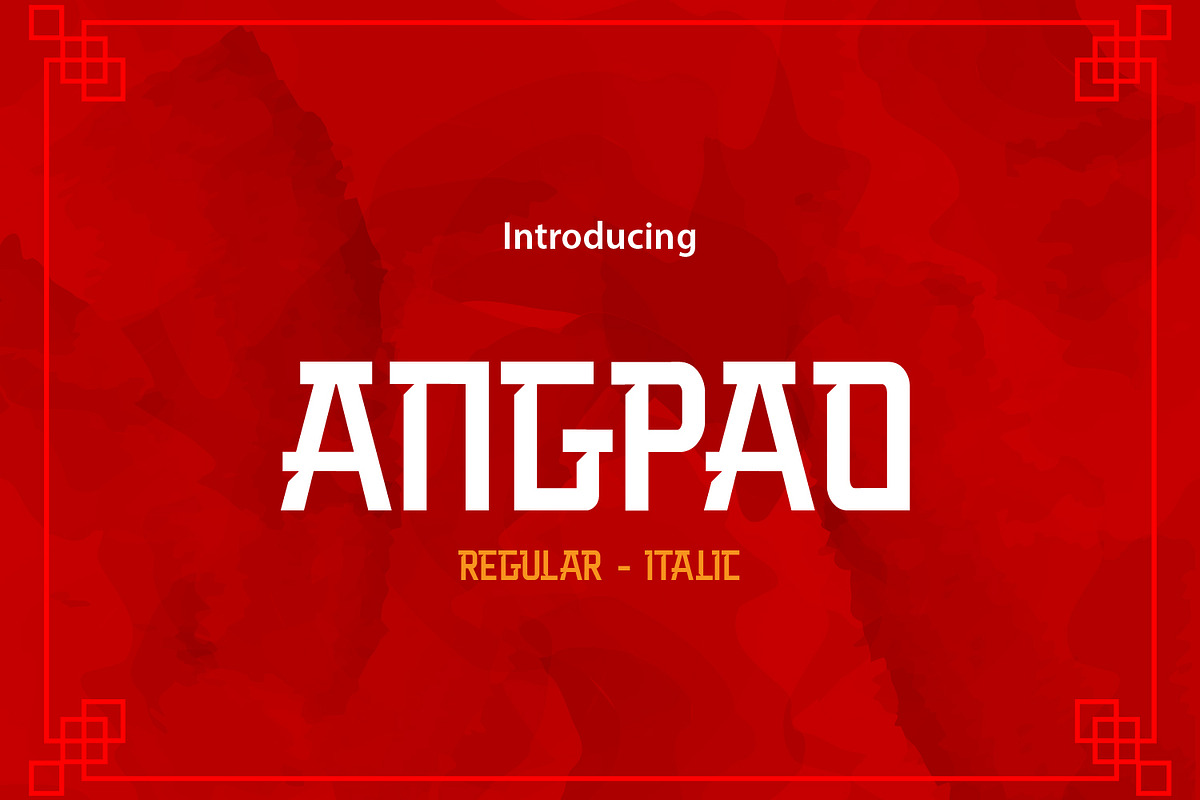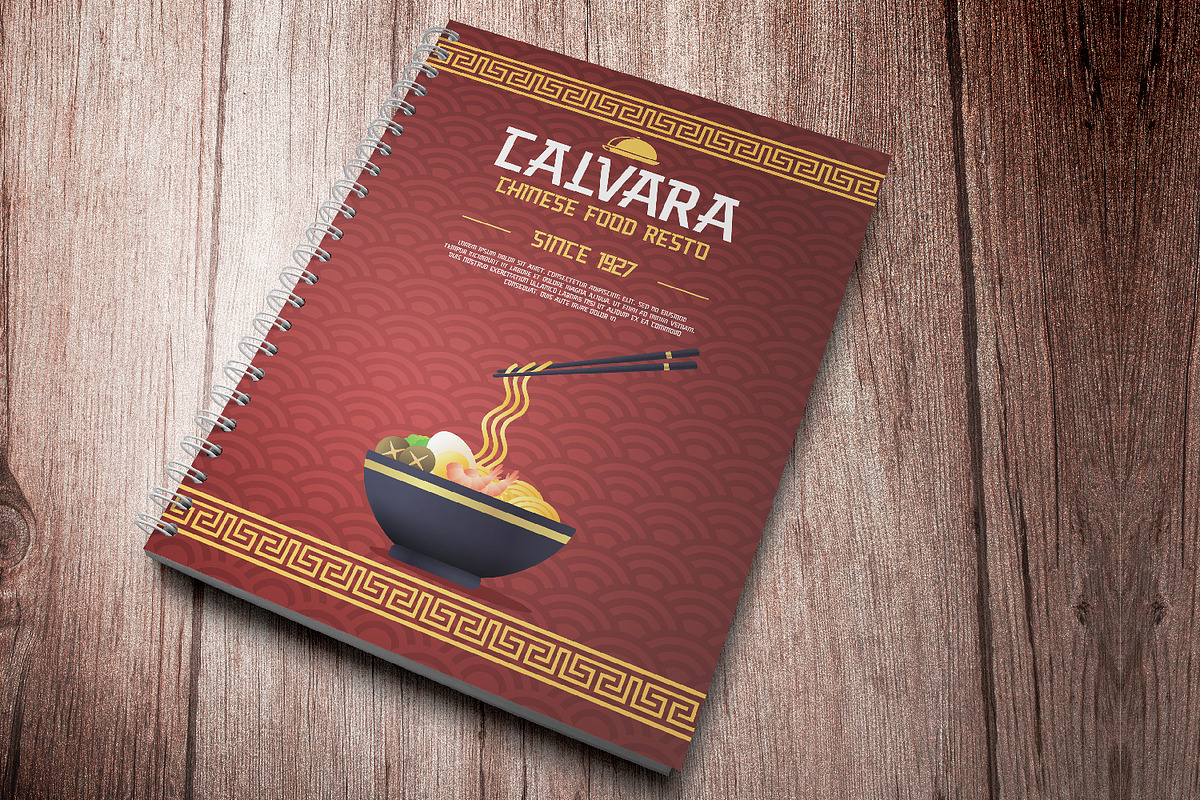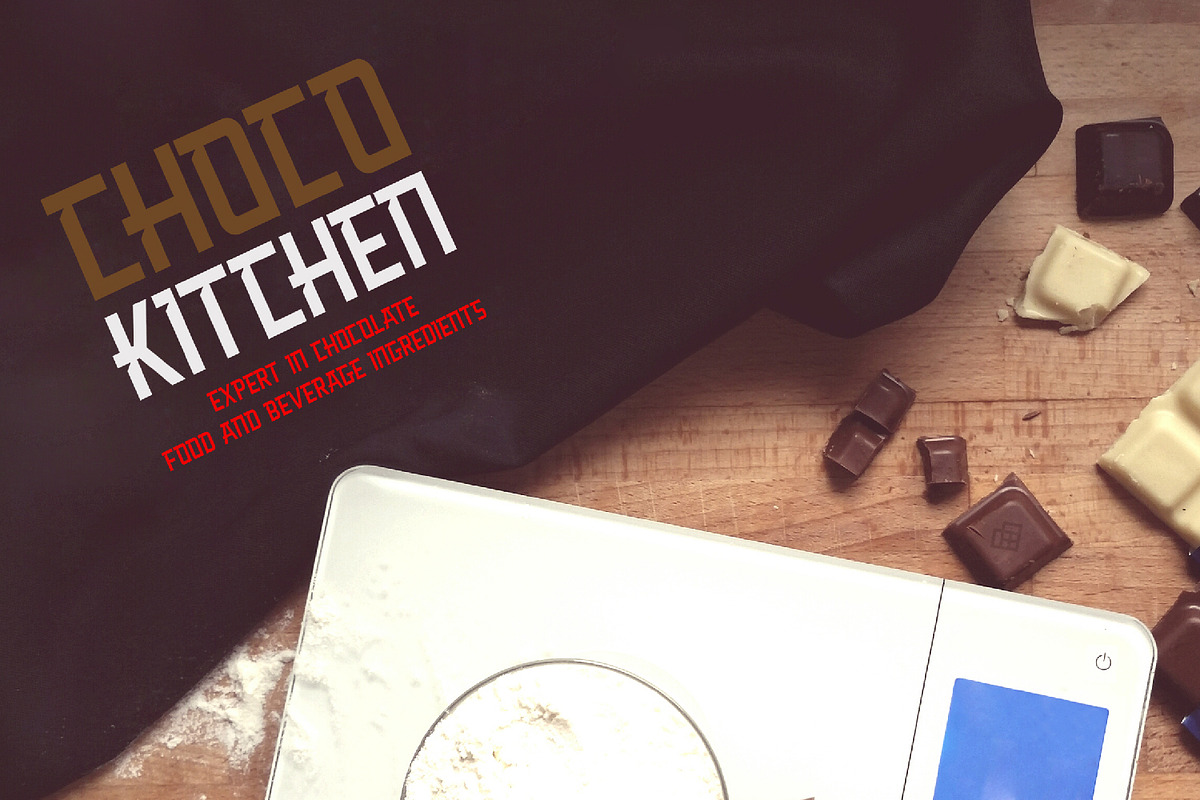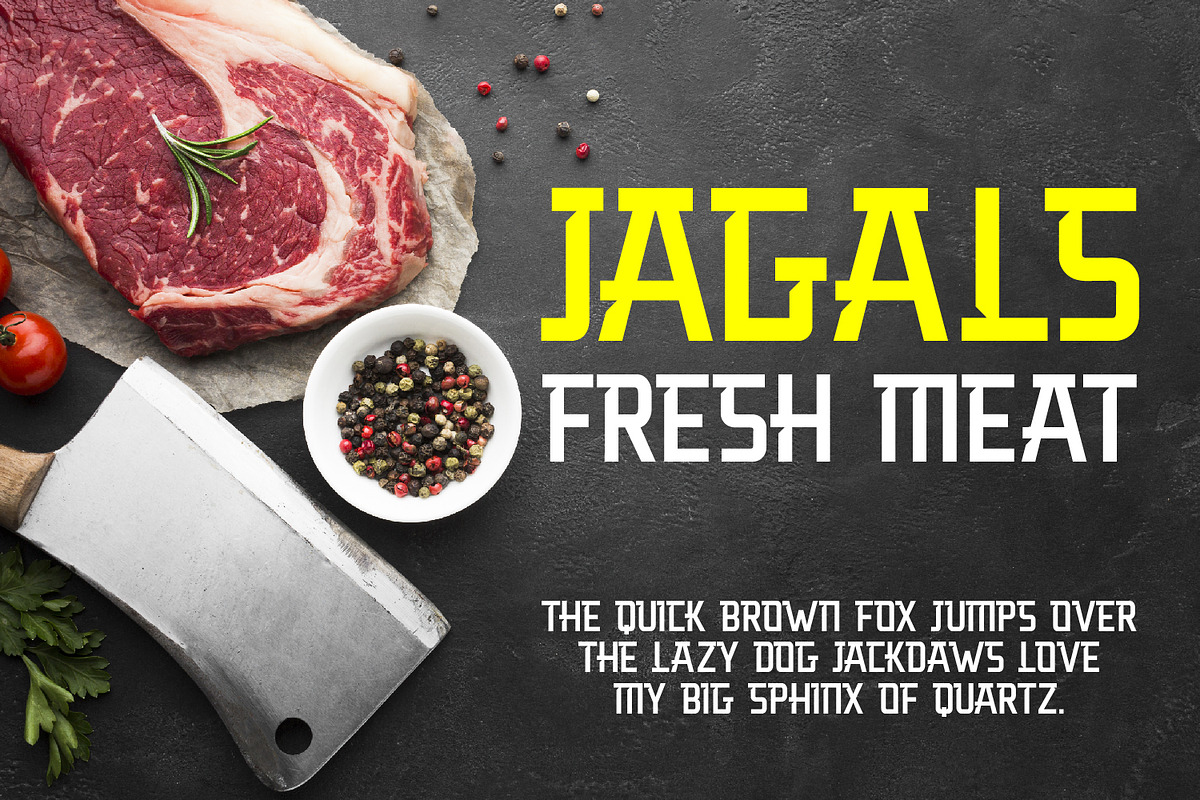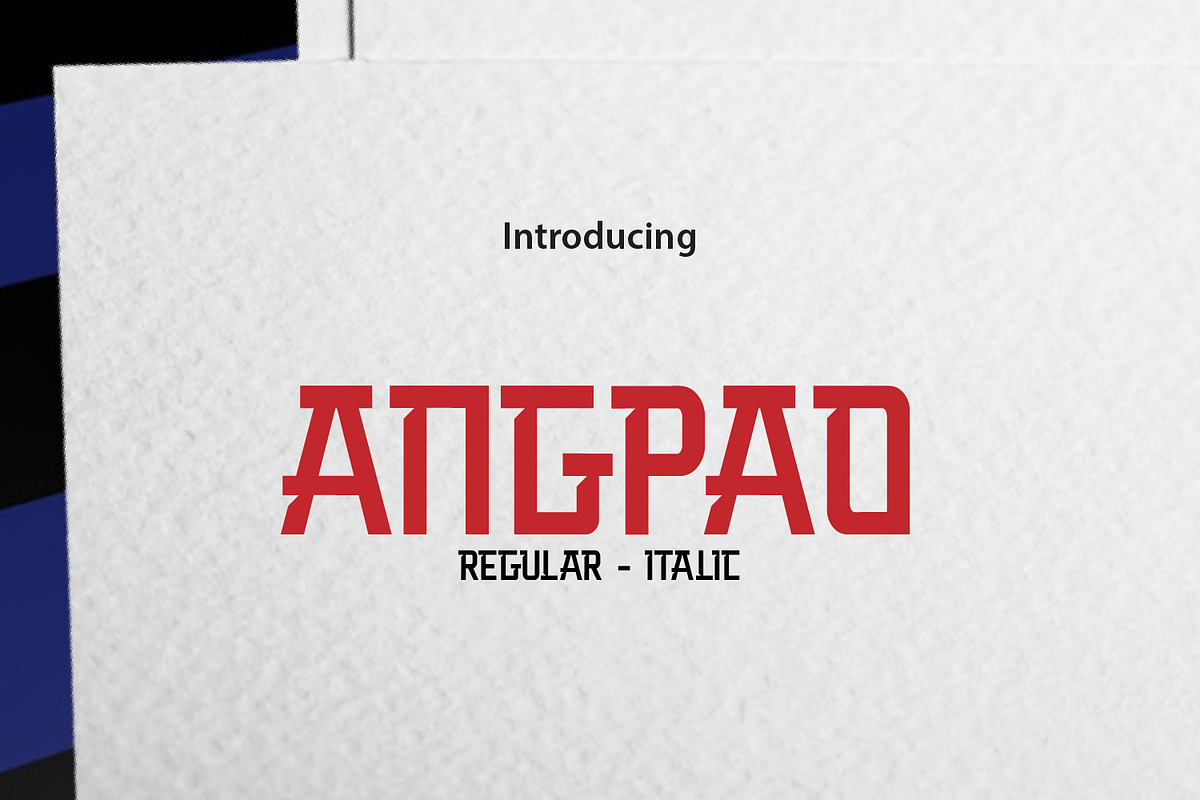
ANGPAO
ANGPAO is a fresh typeface and its have an chinese, asian and oriental looks, a perfect companion for your creative project that has an asian niche, heading title,movie poster,quotes text,and so on